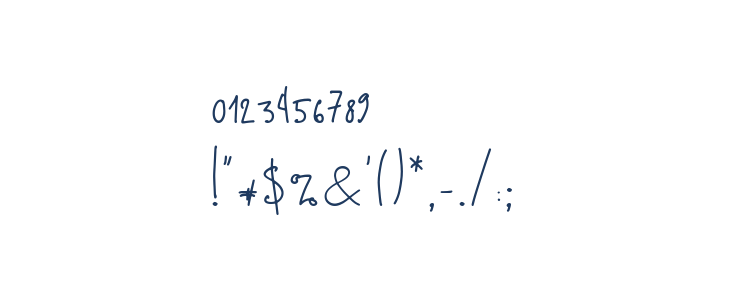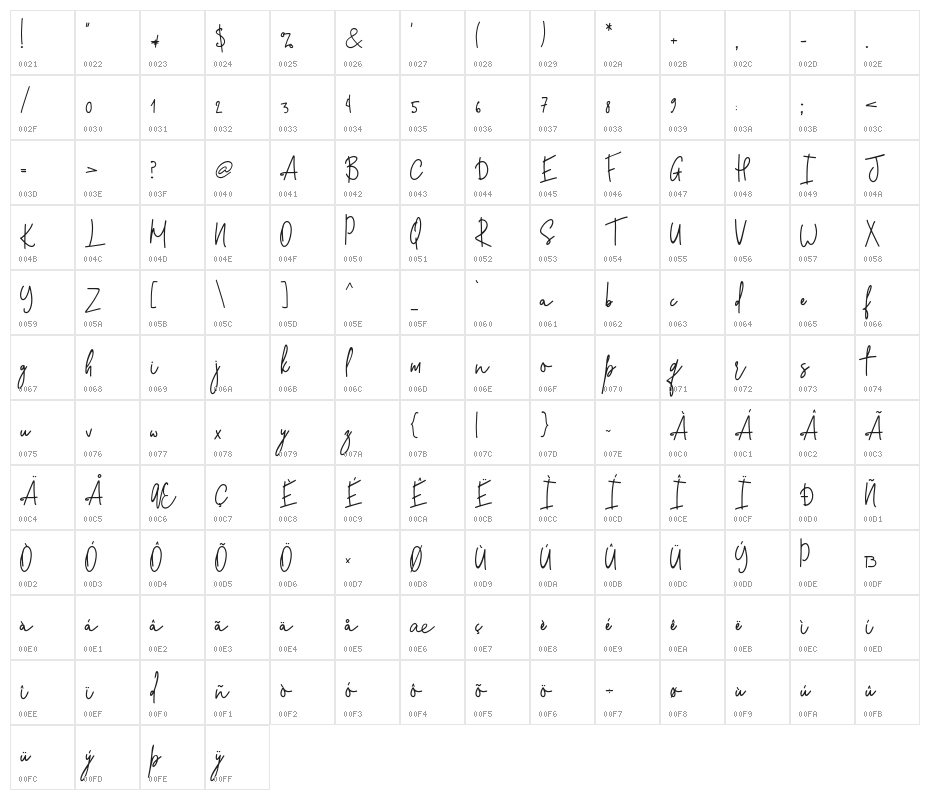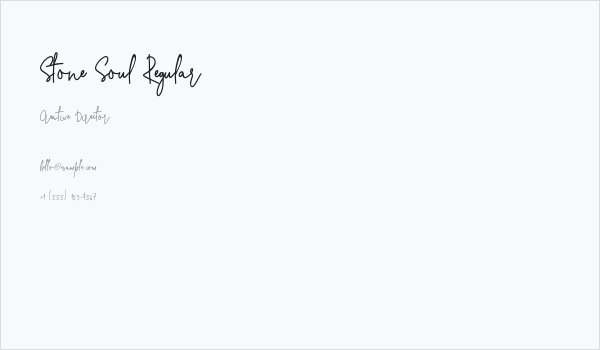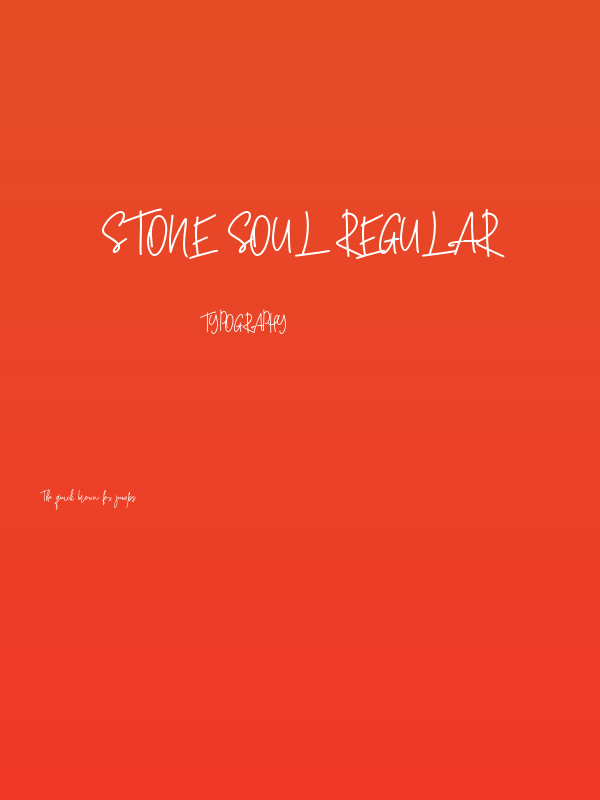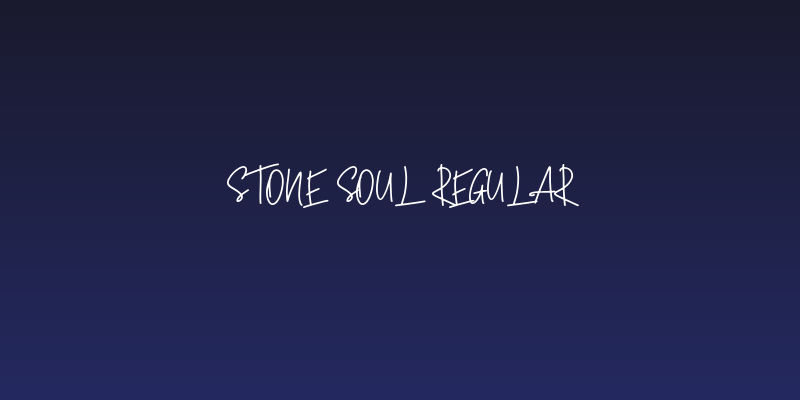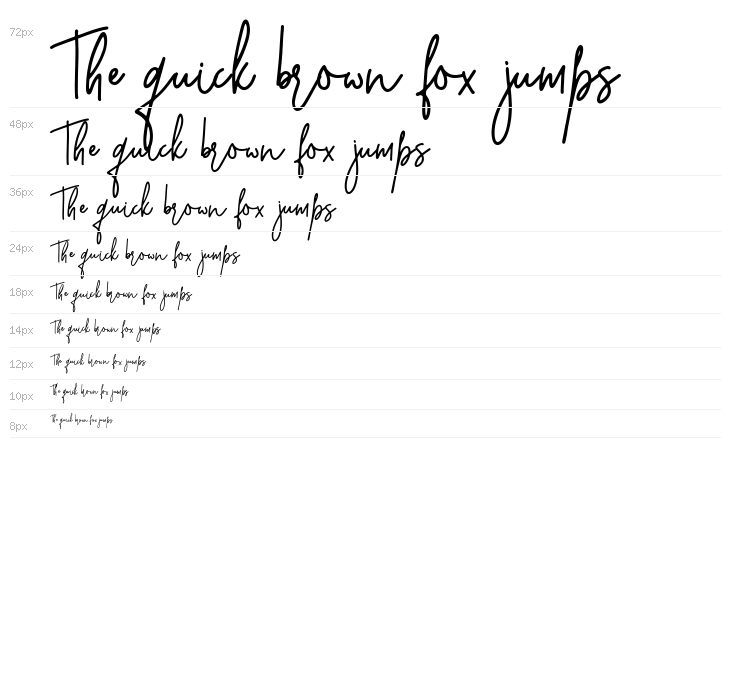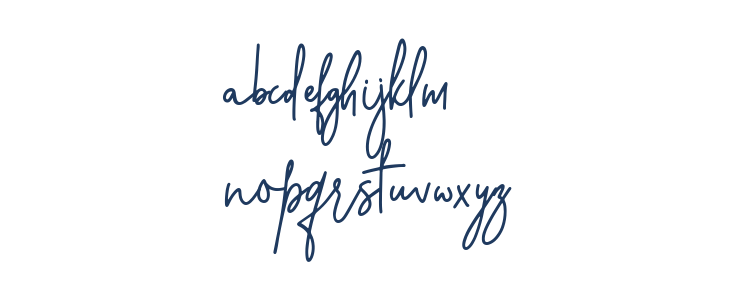
Stone Soul Regular Font
Stone Soul Regular Description
This font features a lively and expressive handwritten style, characterized by its fluid and dynamic strokes. The uppercase letters are bold and slightly irregular, giving a sense of spontaneity and energy. The lowercase letters maintain a consistent flow, with elongated ascenders and descenders that add to the font's whimsical nature. Numbers and special characters are crafted with the same playful touch, ensuring a cohesive look across all elements. The overall appearance is informal yet stylish, making it suitable for creative projects that require a personal touch.
| Proposed Projects | Ideal for greeting cards, personal branding, creative invitations, and artistic posters. |